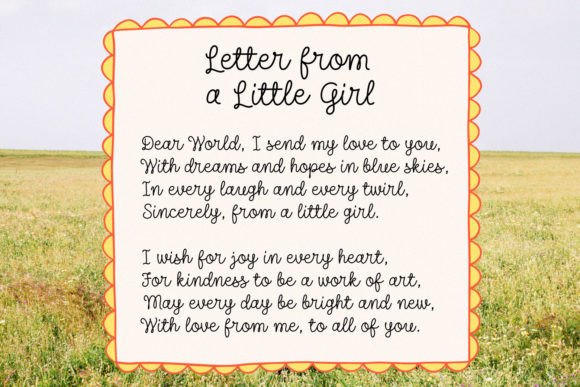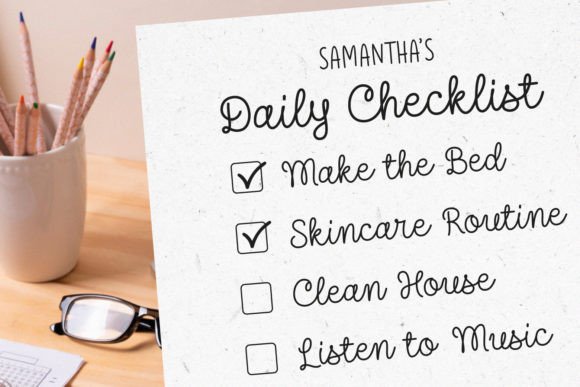
Adorable Notebook Font Font
Adorable Notebook is playful, handwritten script style. The font mimics the natural flow of handwriting, giving it a personal and intimate feel. With rounded edges, Adorable Notebook give gentle, friendly, and inviting character. It can be used fro creative projects, such as greeting cards, invitations, personal journals, and any other design that benefits from a touch of personality and warmth.